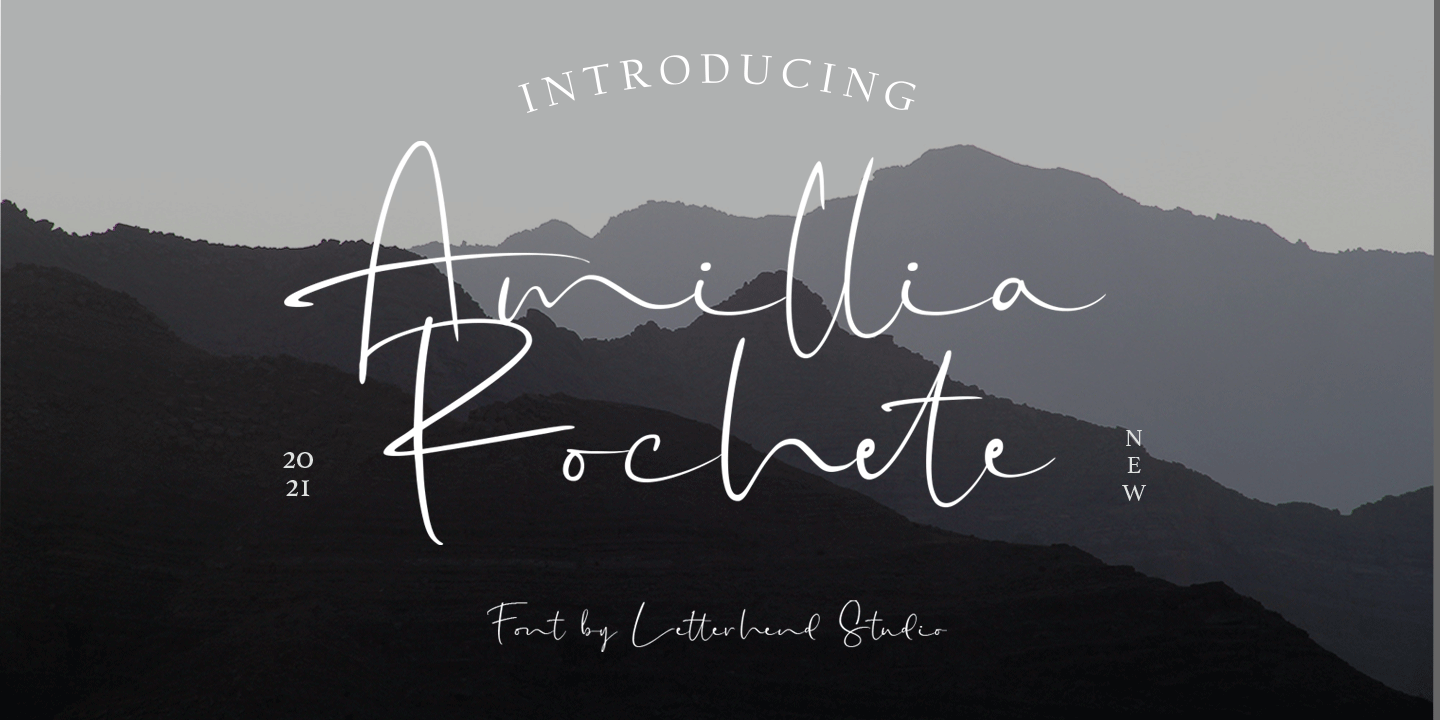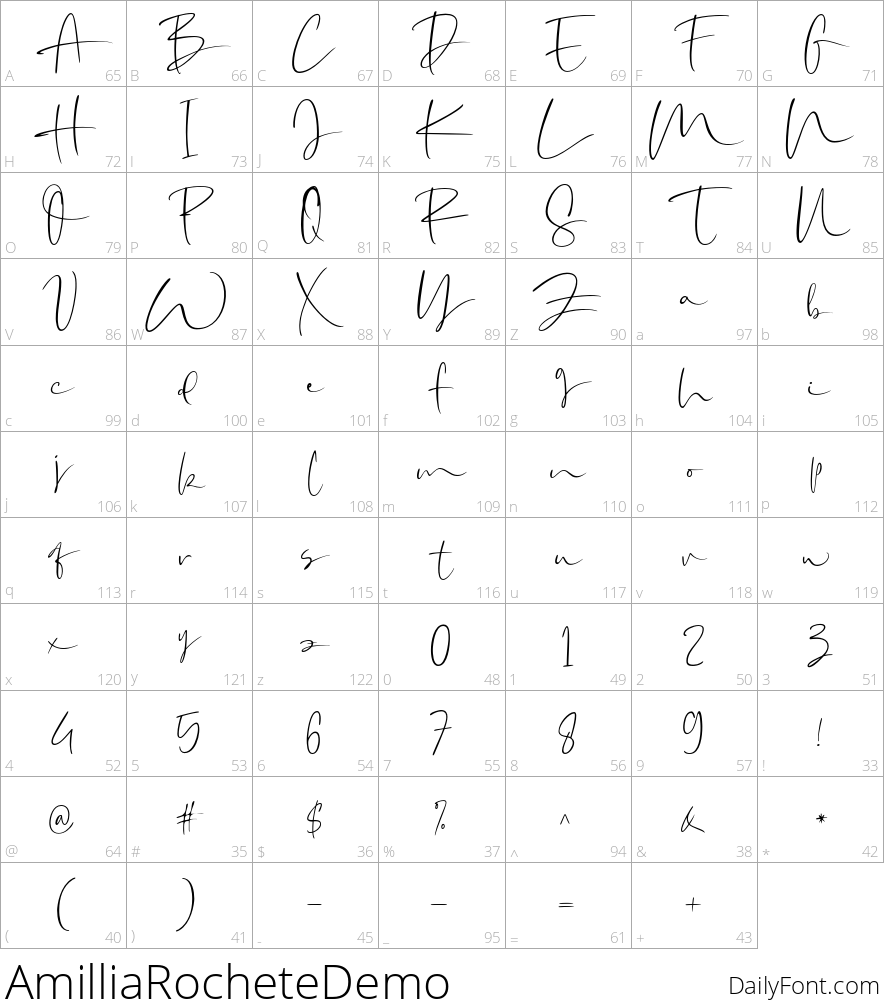
Amillia Rochete
Amillia Rochete is a beautiful script font that captures the essence of authentic handwriting with a natural signature style. Its elegant curves and flowing lines make it perfect for a wide range of applications, particularly in logo design and various formal documents. Whether you're crafting invitations, labels, or creating eye-catching magazine layouts, Amillia Rochete can elevate your project with its sophisticated charm.
Ideal for greeting cards, wedding stationery, packaging, and fashion branding, this font helps convey emotions and aesthetics seamlessly. Additionally, it’s an excellent choice for novels and advertising materials, providing a personal touch that resonates with audiences. Enhance your designs with Amillia Rochete and make a lasting impression in any creative endeavor. Embrace the artistry of handwritten styles and invite the world to experience the unique beauty that Amillia Rochete brings to your projects.